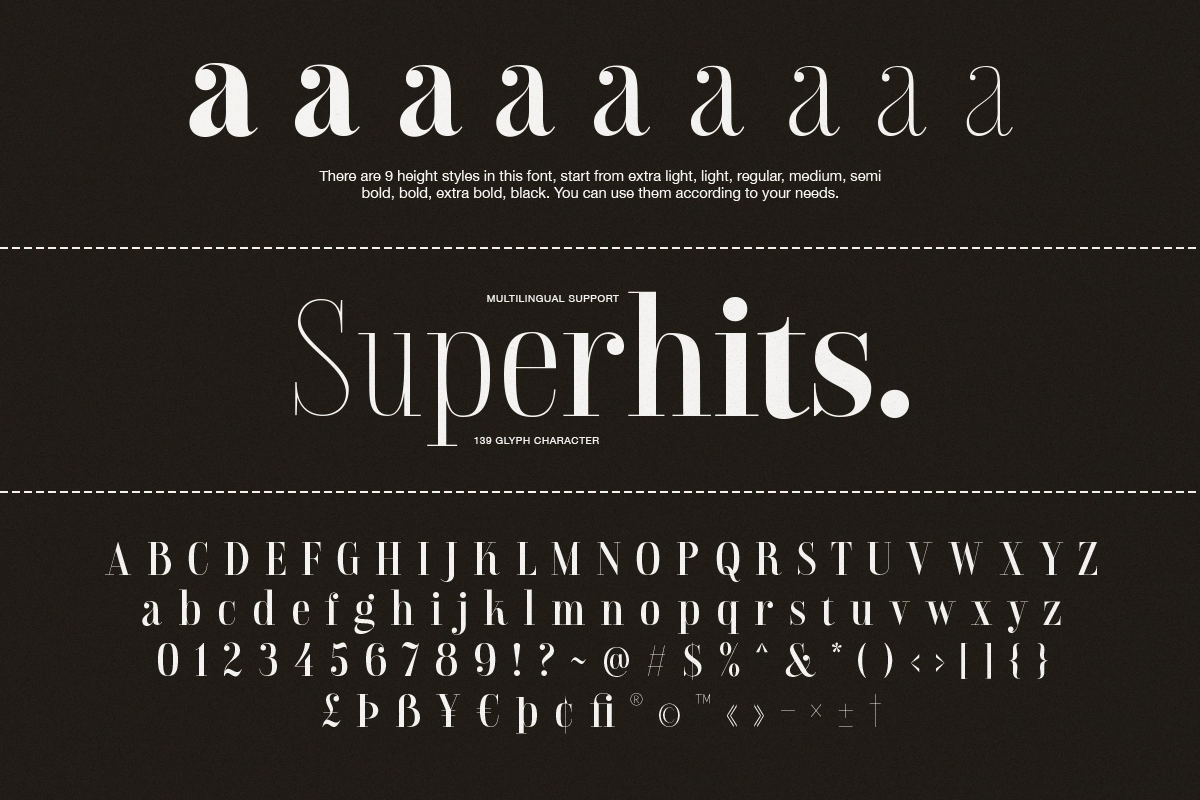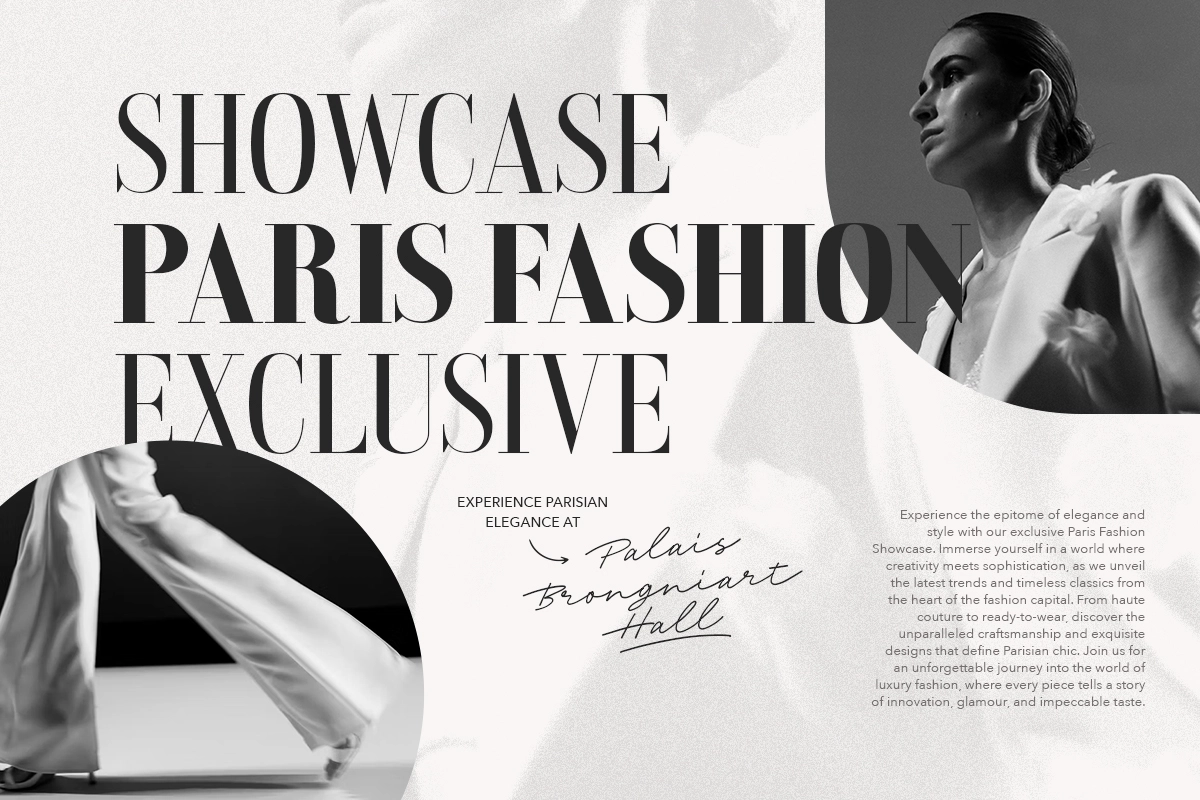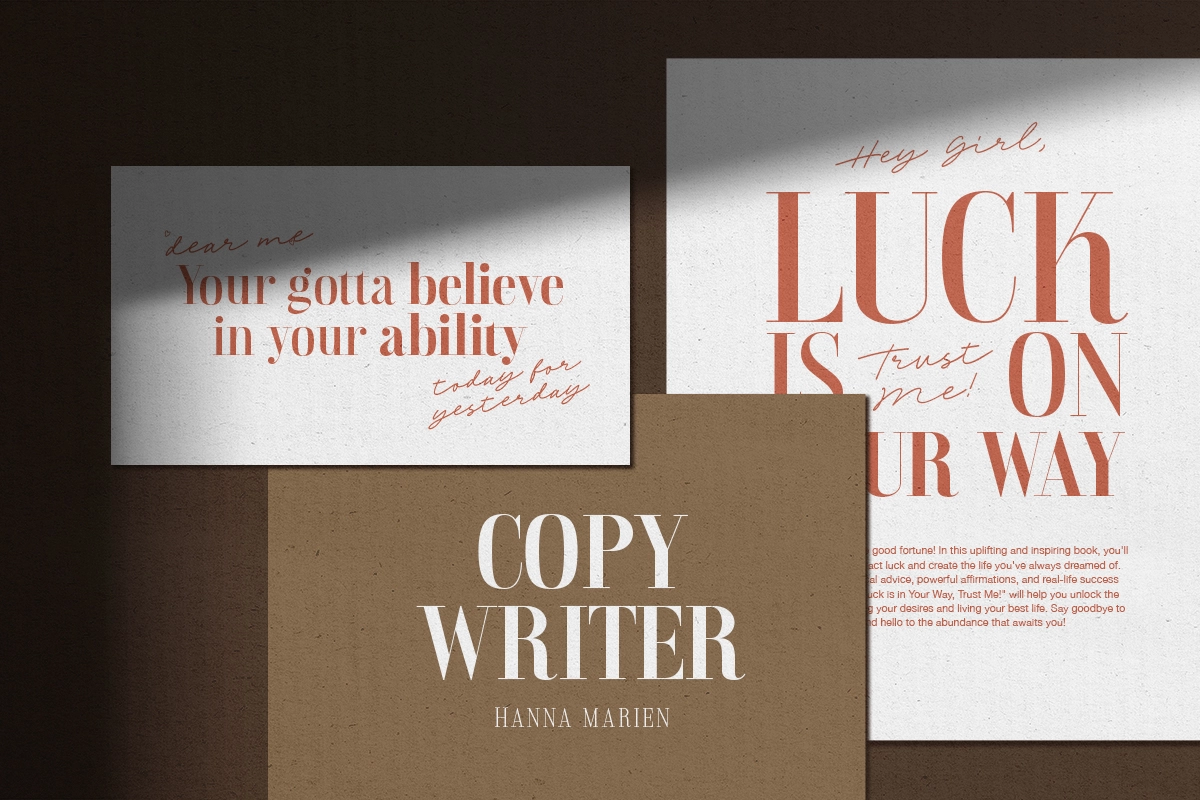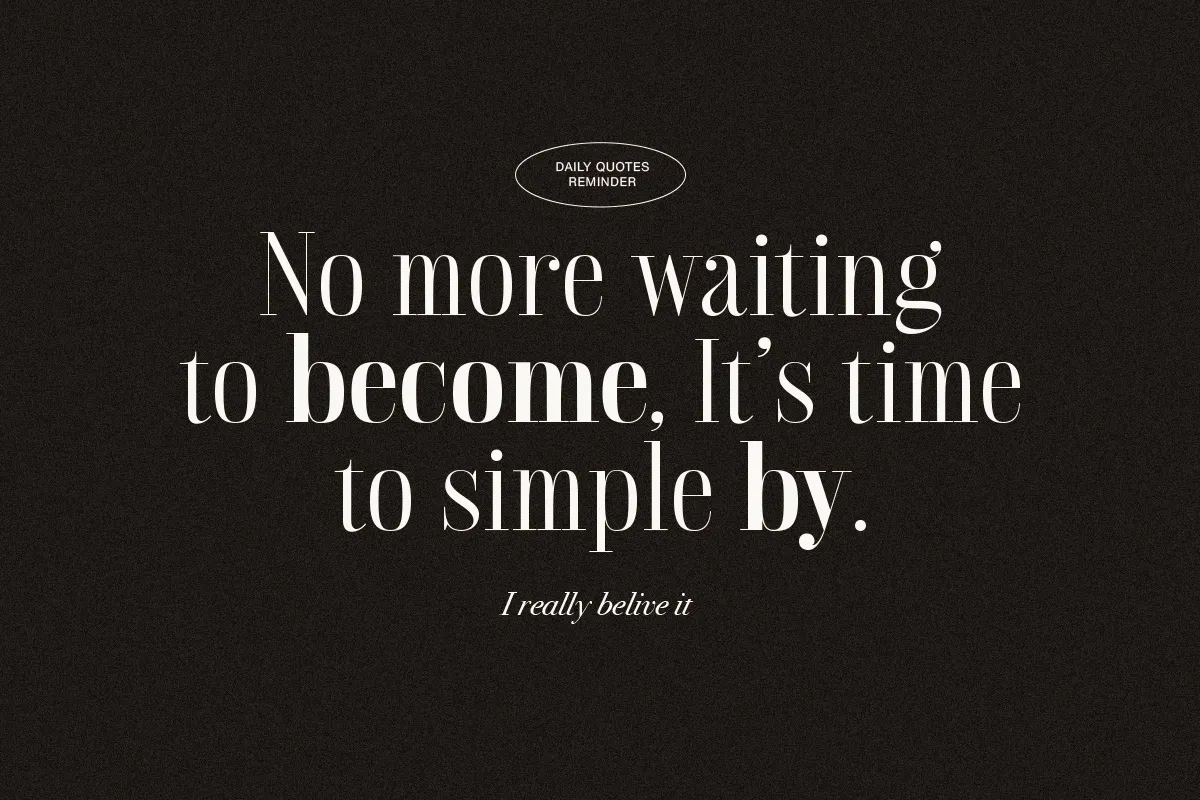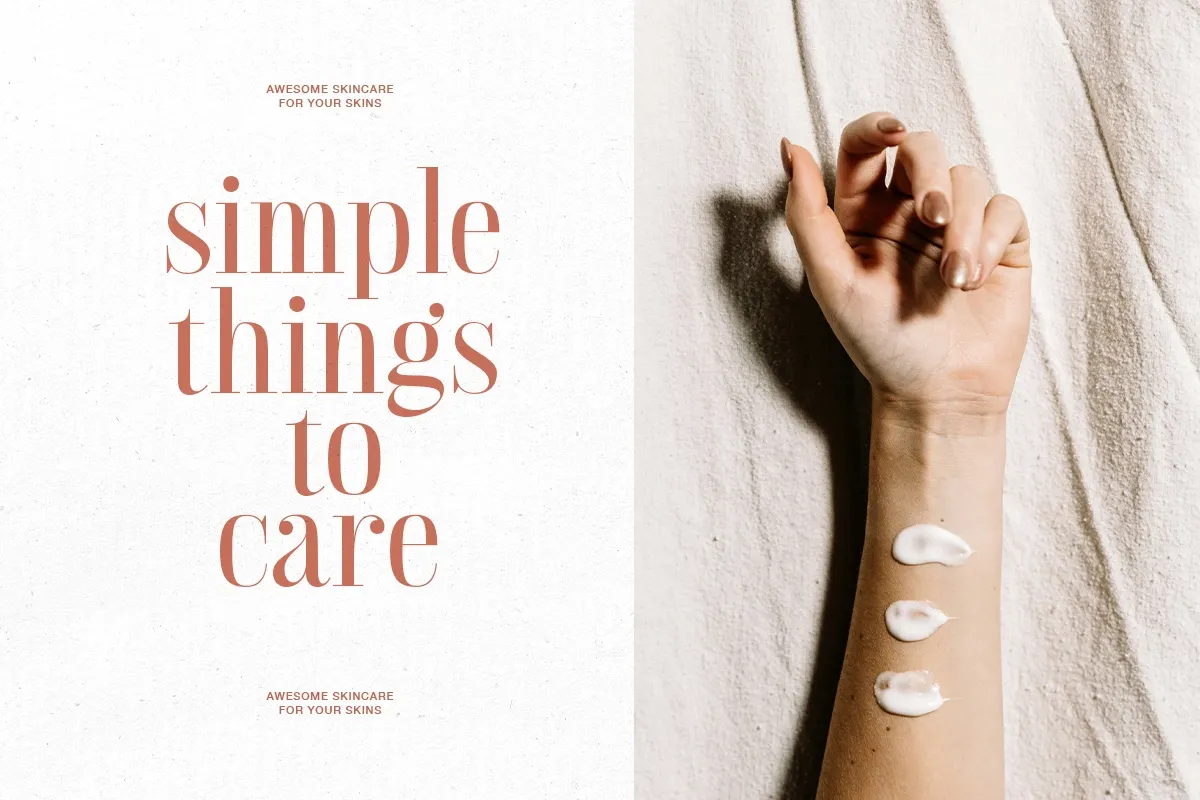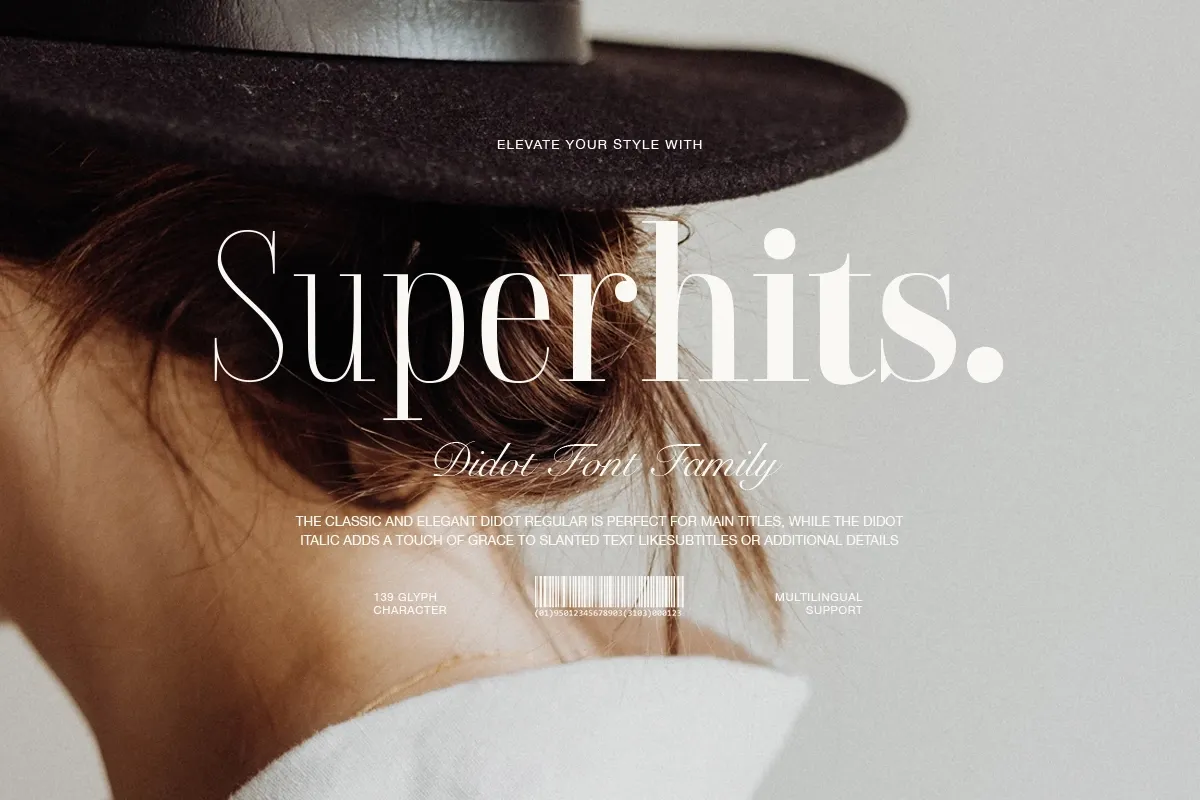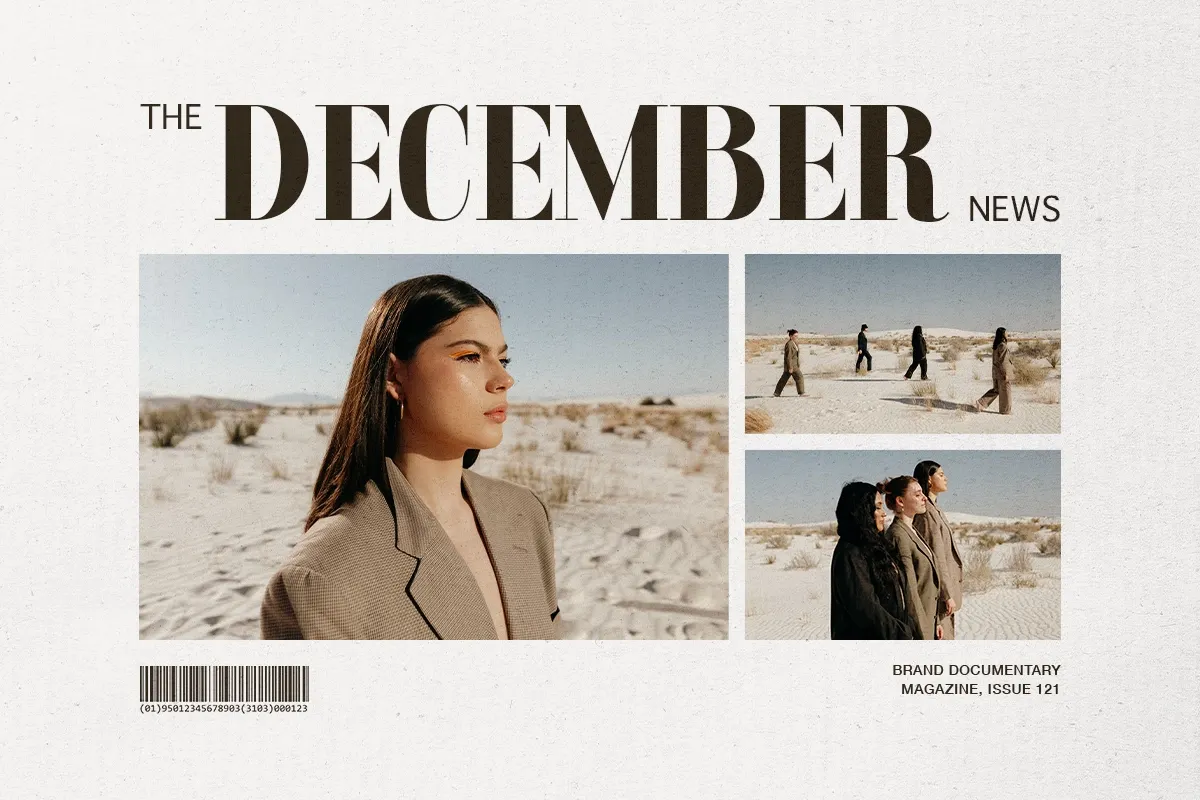
Luxury Didot Serif Font Family
Luxury Didot Serif Font Family is a refined and timeless serif typeface inspired by classic Didot typography. With elegant proportions, dramatic contrast between thick and thin strokes, and delicate hairline serifs, it delivers a sophisticated and high-fashion aesthetic. Its graceful curves and geometric structure create a polished look that feels both luxurious and modern.
Perfect for fashion branding, editorial layouts, luxury packaging, invitations, and high-end visual identities, Superhits brings elegance and prestige to any design. With multiple weights available, it provides flexibility for both striking headlines and refined typography systems.
- 8 Weights (Thin – Black)
- Numerals & Punctuation
- 139 Glyphs
- Ideal for Luxury Branding, Fashion Editorials & Invitations